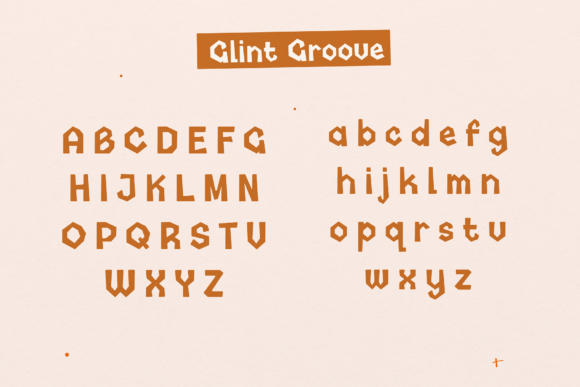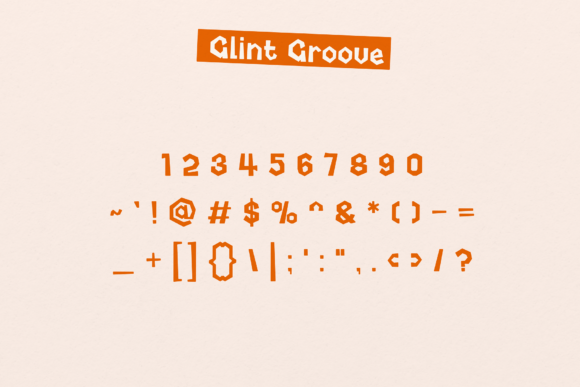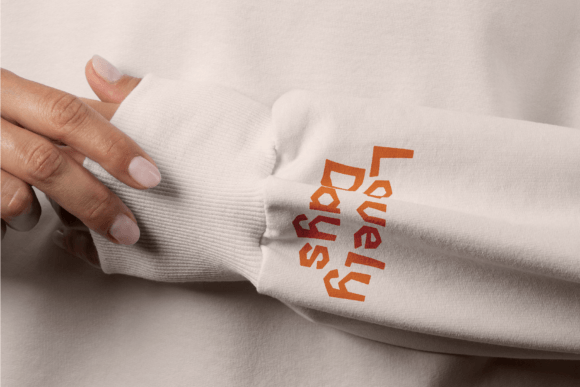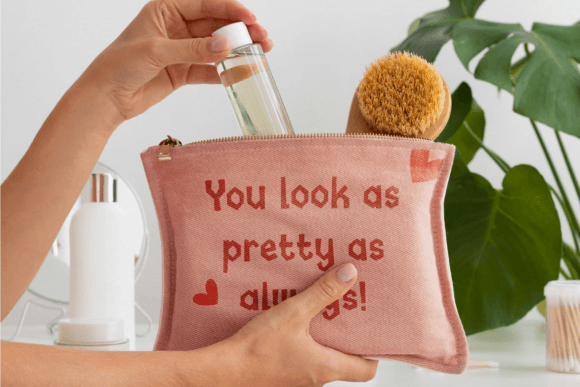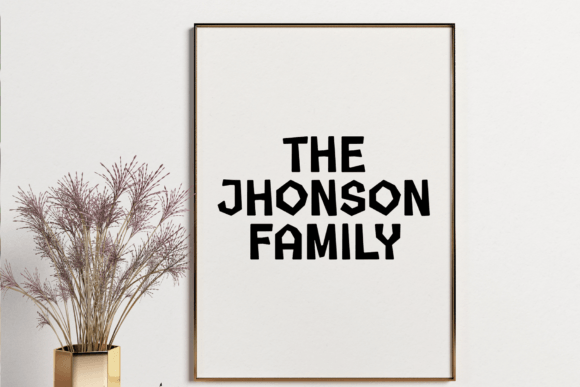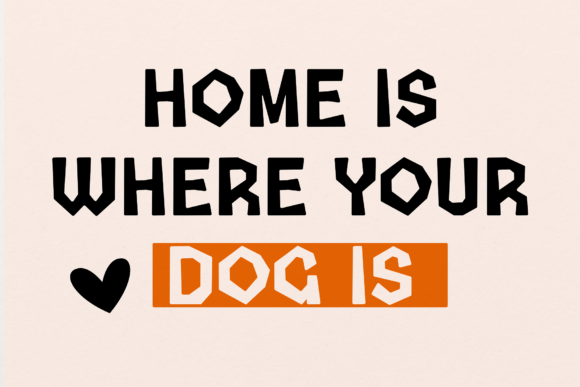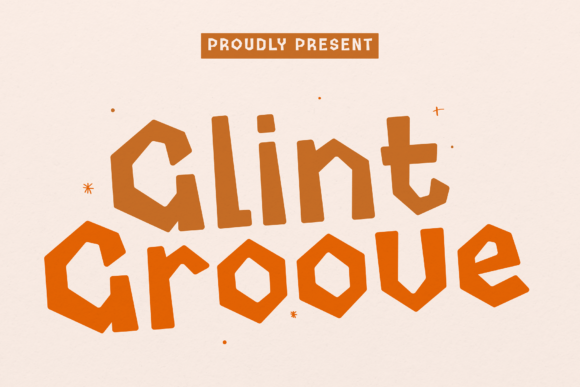
Introducing Glint Groove Font: The Perfect Blend of Playfulness and Professional Boldness
In the world of typography, finding a font that strikes the perfect balance between playfulness and professional boldness can be a daunting task. However, look no further than Glint Groove, a typeface that embodies the ideal fusion of fun and confidence. With its chunky and robust characteristics, Glint Groove captures the essence of rock-solid confidence and enthusiasm, making it an excellent choice for a wide range of projects.
A Font that Dances with Energy
Glint Groove’s design is characterized by its bold, chunky letters that seem to dance with energy and enthusiasm. Each letter is carefully crafted to stand out, making any text instantly eye-catching and memorable. The font’s chunky design ensures that it can be used in various contexts, from digital platforms to print materials, without losing its impact. Whether you’re working on a kids’ project or a professional branding campaign, Glint Groove is sure to make your message shine.
Perfect for Kids’ Creations
For children’s projects, Glint Groove adds a touch of whimsy and excitement, making learning materials, storybooks, and posters more engaging and enjoyable. The font’s playful nature helps to capture kids’ attention, making it an excellent choice for:
- Learning materials: Make learning fun with Glint Groove’s energetic and playful design.
- Storybooks: Bring stories to life with a font that sparks imagination and creativity.
- Posters: Create eye-catching posters that kids will love, with Glint Groove’s bold and chunky design.
A Powerful Tool for Professional Branding
In the professional realm, Glint Groove’s boldness translates into a powerful tool for branding, creating logos and marketing materials that speak volumes about the brand. The font’s confidence-inspiring design makes it perfect for:
- Logos: Create a lasting impression with a bold and memorable logo.
- Marketing materials: Make your marketing materials stand out with Glint Groove’s energetic design.
- Branding campaigns: Develop a strong brand identity with a font that exudes confidence and professionalism.
Why Choose Glint Groove?
So, why choose Glint Groove over other fonts? Here are just a few reasons:
- Versatility: Glint Groove can be used in a wide range of projects, from kids’ creations to professional branding.
- Impactful design: The font’s bold and chunky design ensures that your message will make a strong, lasting impression.
- Playfulness: Glint Groove’s playful nature makes it perfect for projects that require a touch of whimsy and fun.
- Professionalism: The font’s confidence-inspiring design makes it suitable for professional branding and marketing materials.
Get Creative with Glint Groove
Whether you’re a designer, crafter, or simply someone who loves to explore the world of typography, Glint Groove is an excellent addition to your font collection. With its unique blend of playfulness and professional boldness, Glint Groove is sure to inspire your creativity and help you create stunning projects.